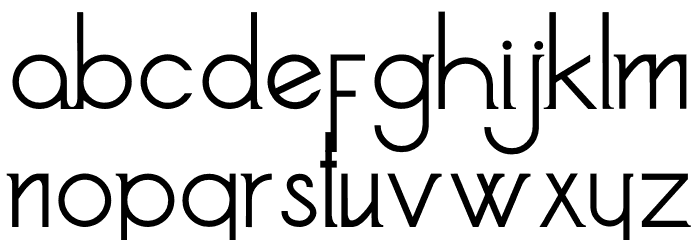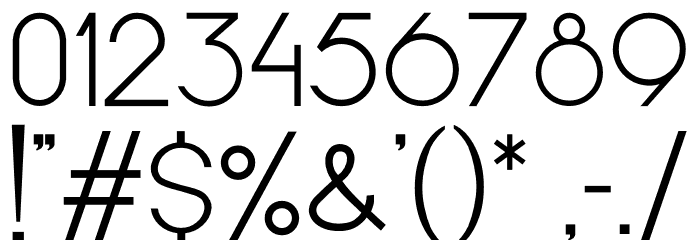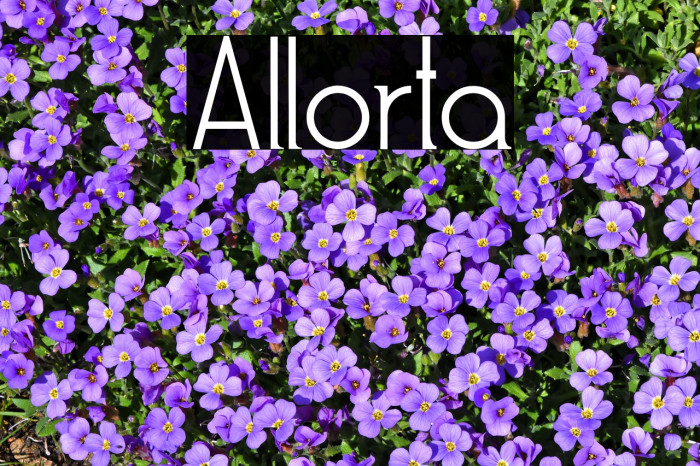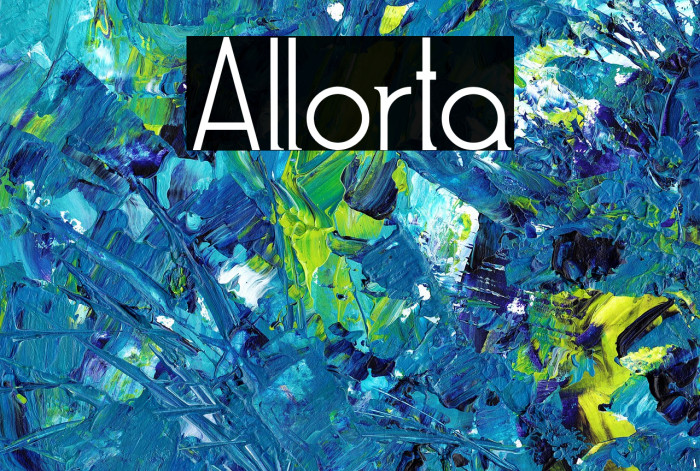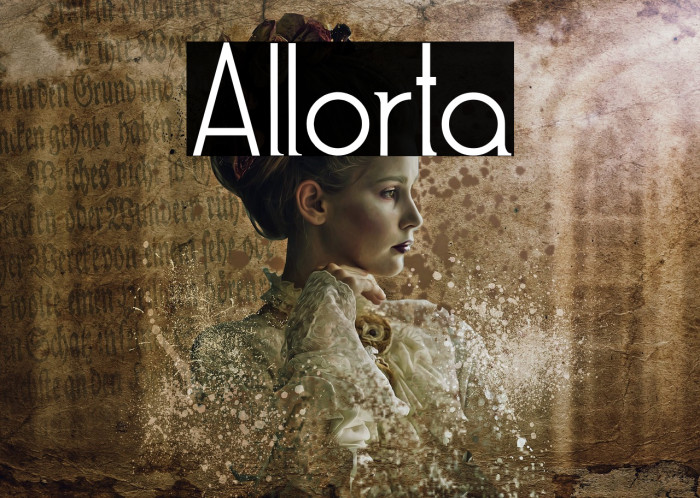
Allorta Font
This font features a geometric and modern design with clean lines and a minimalist aesthetic. The uppercase letters are tall and narrow, with a consistent stroke width that gives them a sleek appearance. The lowercase letters maintain the same geometric style, with some unique characteristics such as the distinctive loop in the 'g' and the open counter in the 'a'. The numerals are proportional and align well with the overall style, while the special characters are designed to complement the alphabet with similar line weights and angles. The font's simplicity and clarity make it highly legible, suitable for various design applications.
A geometric and modern font with clean lines and minimalist design.
- Proposed Projects: Ideal for modern branding, advertising, editorial design, and digital interfaces.
- Use Case: Headlines, Logos, Digital interfaces